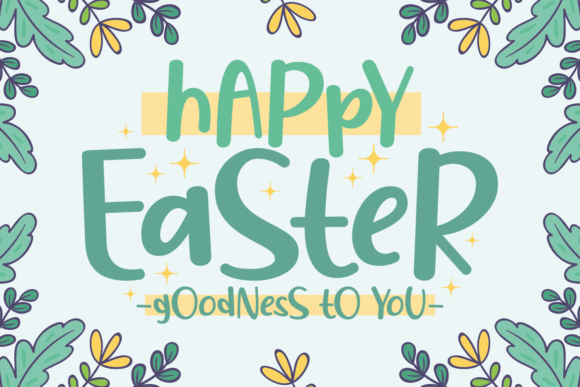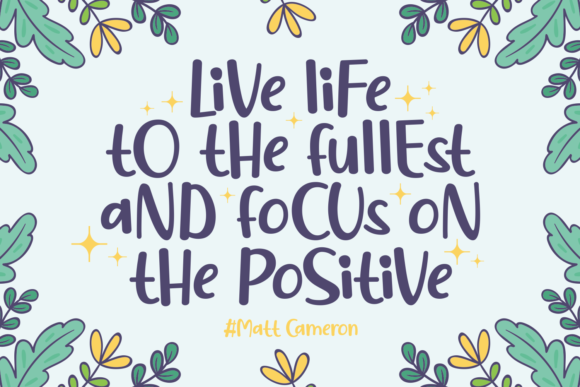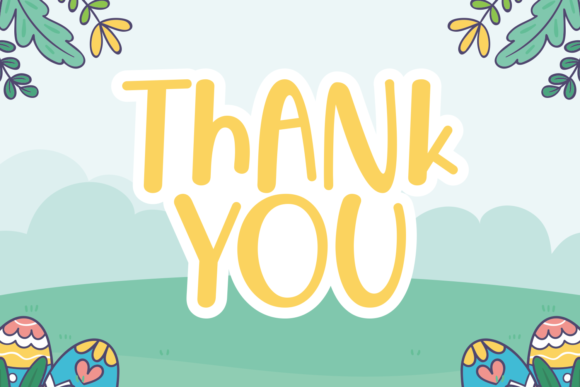
Hapster Font: Add a Touch of Whimsy to Your Designs
Are you looking for a font that can add a dash of playfulness and charm to your designs? Look no further than the Hapster font! This cute and charming display font is perfect for designers and crafters who want to create unique and eye-catching projects. In this article, we’ll take a closer look at the Hapster font, its features, and how you can use it to elevate your designs.
What is Hapster Font?
Hapster is a display font that is whimsical and a bit quirky. It’s designed to brighten up your designs and add a touch of personality to your projects. The font is perfect for use in a variety of design applications, including posters, flyers, brochures, and more. Its unique and charming design makes it an excellent choice for designers who want to create something that stands out from the crowd.
Key Features of Hapster Font
So, what makes the Hapster font so special? Here are some of its key features:
- Cute and charming design: The Hapster font has a unique and charming design that’s sure to capture the attention of your audience.
- Whimsical and quirky: The font has a playful and quirky feel that’s perfect for designers who want to add a touch of personality to their projects.
- Display font: The Hapster font is designed specifically for use as a display font, making it perfect for headlines, titles, and other design elements.
- Easy to read: Despite its playful design, the Hapster font is easy to read, making it perfect for use in a variety of design applications.
How to Use Hapster Font in Your Designs
Now that we’ve covered the features of the Hapster font, let’s talk about how you can use it in your designs. Here are some ideas to get you started:
- Posters and flyers: The Hapster font is perfect for use in posters and flyers, where you want to grab the attention of your audience and make a lasting impression.
- Social media graphics: Use the Hapster font to create eye-catching social media graphics that will help your brand stand out from the crowd.
- Branding and packaging: The Hapster font can be used to create unique and memorable branding and packaging designs that will help your product or service stand out.
- Crafting and DIY projects: If you’re a crafter or DIY enthusiast, the Hapster font is a great choice for your projects, such as handmade cards, gift tags, and more.
Tips for Using Hapster Font Effectively
Here are some tips for using the Hapster font effectively in your designs:
- Use it sparingly: While the Hapster font is cute and charming, it can be overwhelming if used too much. Use it sparingly to add emphasis to your design.
- Pair it with other fonts: The Hapster font pairs well with other fonts, such as sans-serif fonts. Experiment with different font combinations to find the one that works best for your design.
- Experiment with colors: The Hapster font looks great in a variety of colors. Experiment with different colors to find the one that works best for your design.
In conclusion, the Hapster font is a cute and charming display font that’s perfect for designers and crafters who want to add a touch of whimsy to their designs. Its unique and playful design makes it an excellent choice for a variety of design applications, from posters and flyers to social media graphics and crafting projects. By following the tips outlined in this article, you can use the Hapster font effectively and create designs that are both eye-catching and memorable.